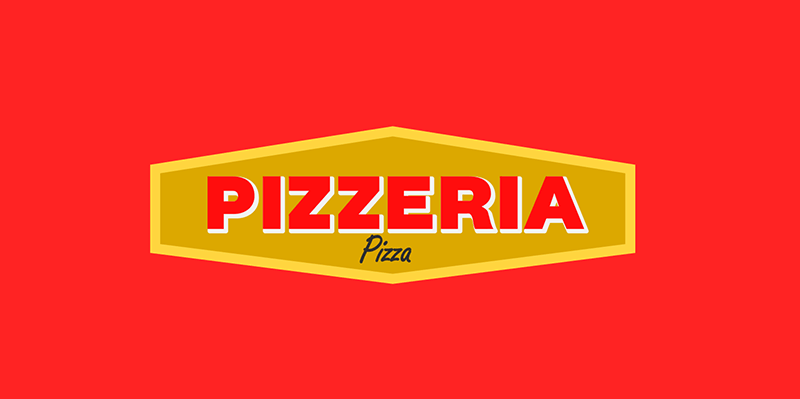
Preview and download Plata Font. Created by 4RM Font in Basic Sans serif styles with Free for personal use license.
Font name: | Plata |
Author: | 4RM Font |
Plata font is a humanist display font with unique authentic value. available with 4 weights will add value to the authenticity of this font. generally suitable for use in logo design, packaging. -This font available with license FREE PERSONAL USE LICENSE -Here is a link to buy a commercial license of full version 2 Potato sans font styles : myfonts.com |